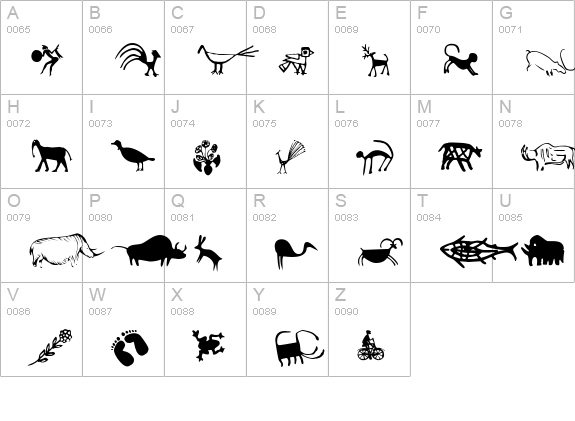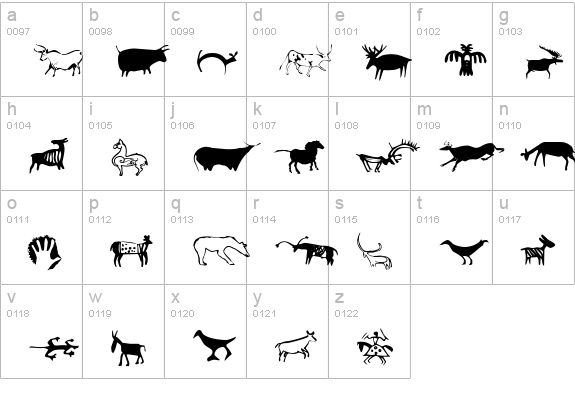
CavePaintingDingbats Font Details
CavePaintingDingbats font is a unique and artistic typeface inspired by ancient cave paintings. Each character in this font features intricate patterns and symbols reminiscent of prehistoric art. This font is perfect for adding a touch of history and mystery to your designs, whether you're working on a project related to archaeology, history, or art. The best part about CavePaintingDingbats font is that it is completely free to download at FontsMarket.com. You can easily access this one-of-a-kind font and use it in your personal or commercial projects without any restrictions. Add a touch of authenticity and intrigue to your designs with CavePaintingDingbats font today!